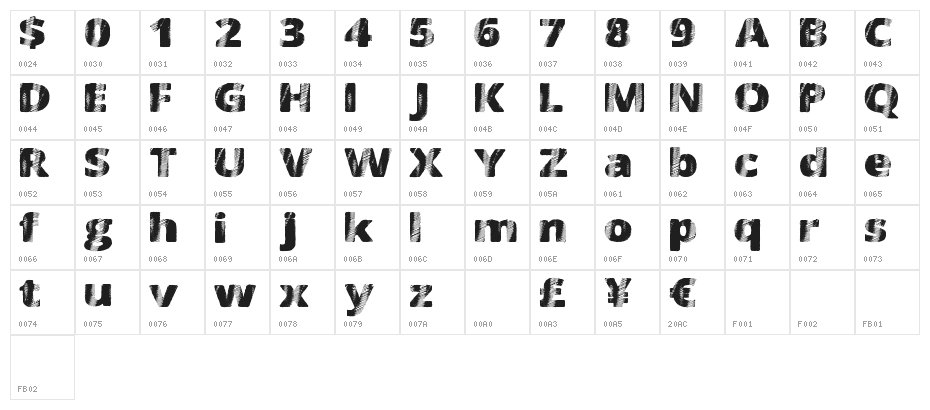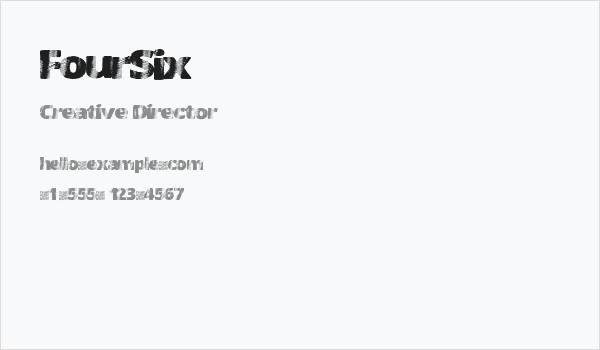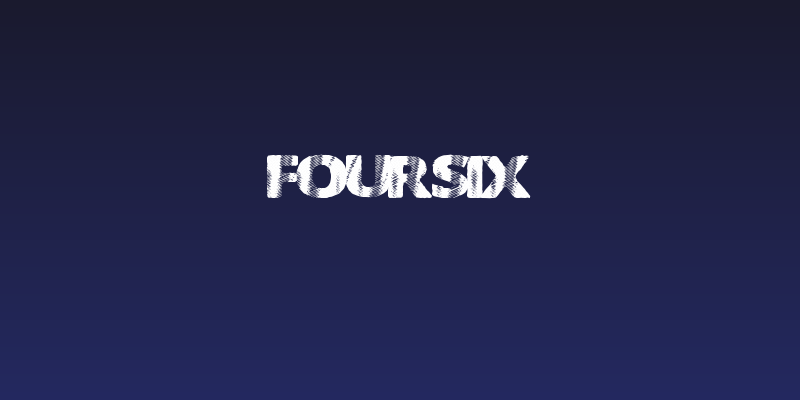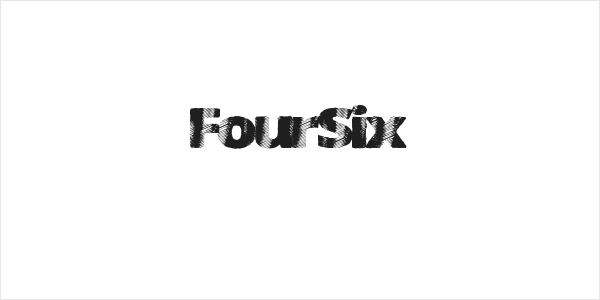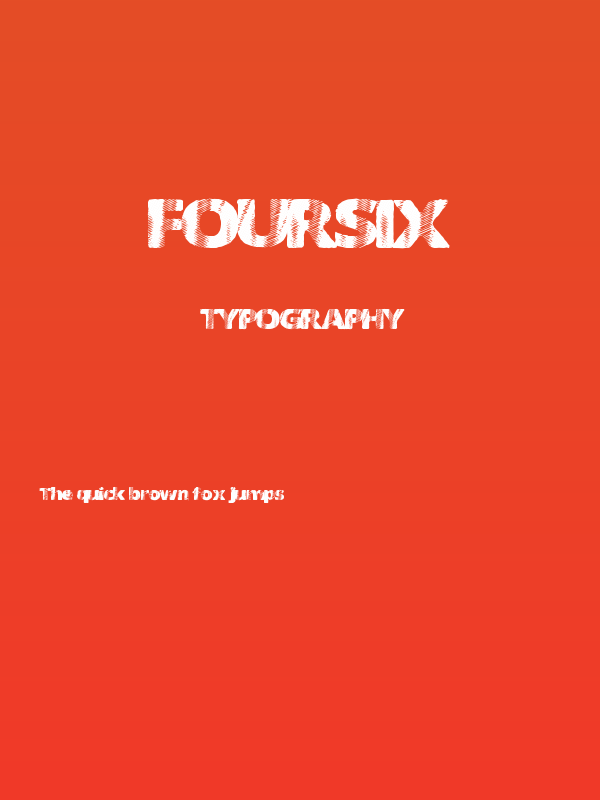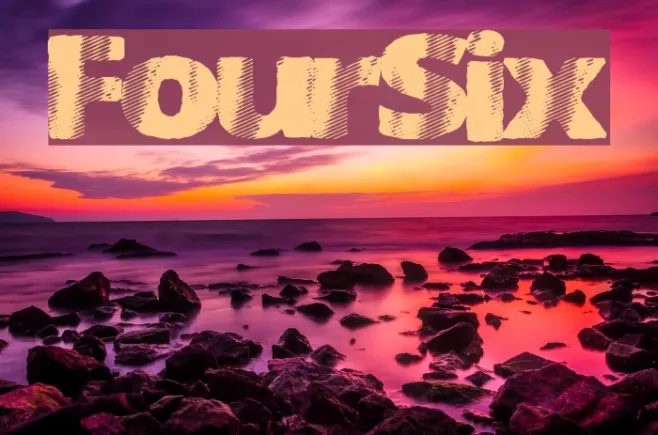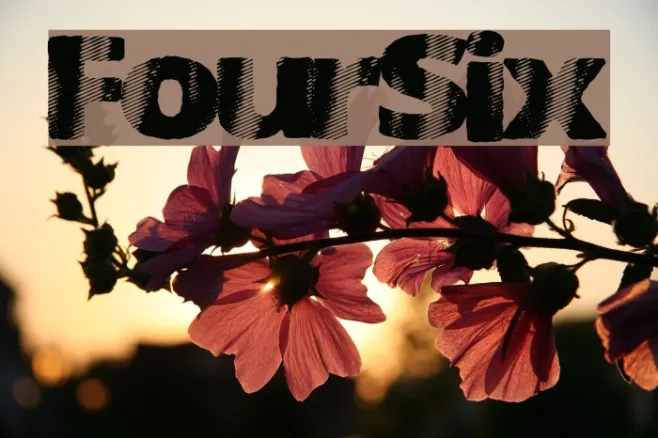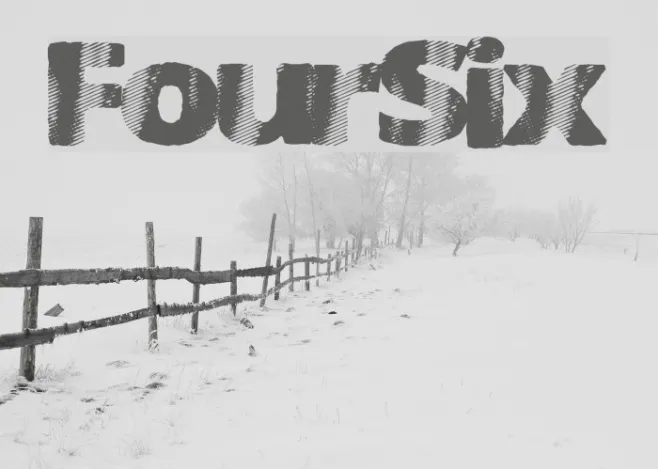
FourSix Font
FourSix Description
This font features a bold, dynamic style with a textured appearance that resembles a series of diagonal lines or stripes running through each character. The uppercase and lowercase letters maintain a consistent weight, giving the font a cohesive look. The numerals and special characters share this distinctive pattern, making the font stand out with its unique visual texture. The overall design is modern and eye-catching, suitable for projects that require a strong visual impact. The font's boldness and texture make it ideal for headlines, posters, and other display purposes where attention-grabbing typography is desired.
| Proposed Projects | Ideal for posters, headlines, branding materials, and any design requiring a bold statement. |